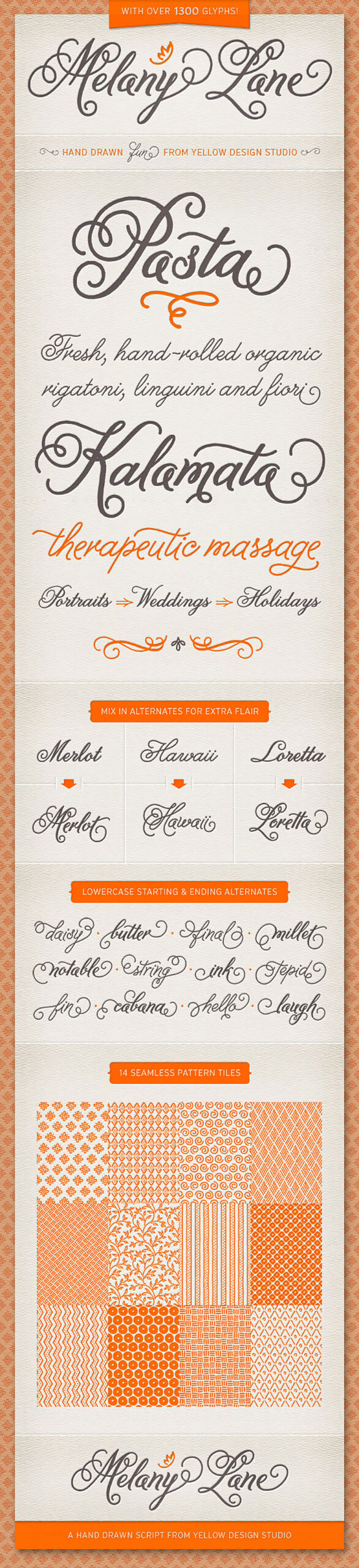
You can’t have too many good script typefaces; each one brings personality and a distinct character to a brand.
Case in point: Melany Lane by Yellow Design studio. A delicious hand-drawn font that’s perfect for wedding invitations, restaurant menus and anything that you want to feel hand-crafted.
Melany Lane includes 1300 glyphs and 364 ligatures, with alternate glyphs for a bit more flair and the unusual addition of both lowercase starting and ending alternates. The organic feel continues with 14 seamless, hand drawn tiles.
Absolutely perfect for print work, webfonts (without the opentype alternatives) are also available to give you a consistent brand across all media.